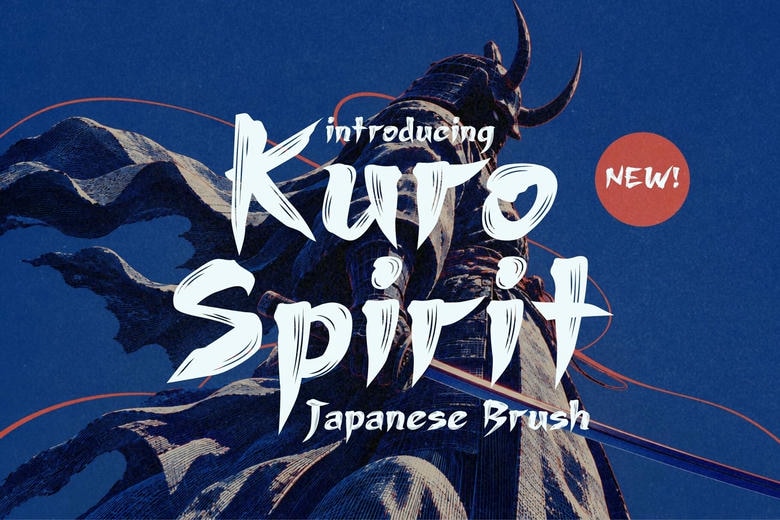
Kuro Spirit Font
Kuro Spirit is a fierce hand-drawn Japanese brush calligraphy font built for designs that demand attitude, movement, and raw personality. Inspired by the collision of traditional Asian brushwork, rebellious Japanese street culture, underground fashion, and cinematic action, every letter carries the energy of ink dragged rapidly across paper.
Kuro Spirit is especially powerful when used large. Build commanding movie titles, Japanese-inspired streetwear graphics, martial arts posters, gaming logos, manga-inspired artwork, album covers, restaurant branding, packaging, merchandise, tattoos, book covers, and bold editorial layouts.
Kuro Spirit Japanese Brush Script Font